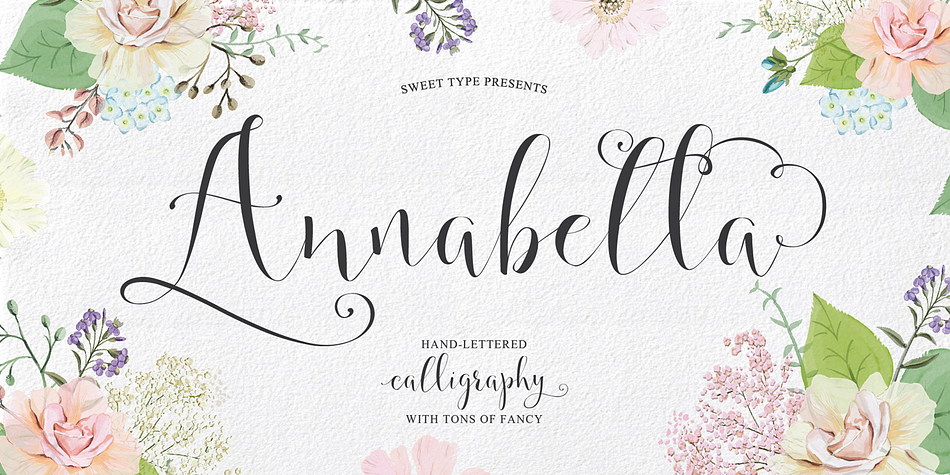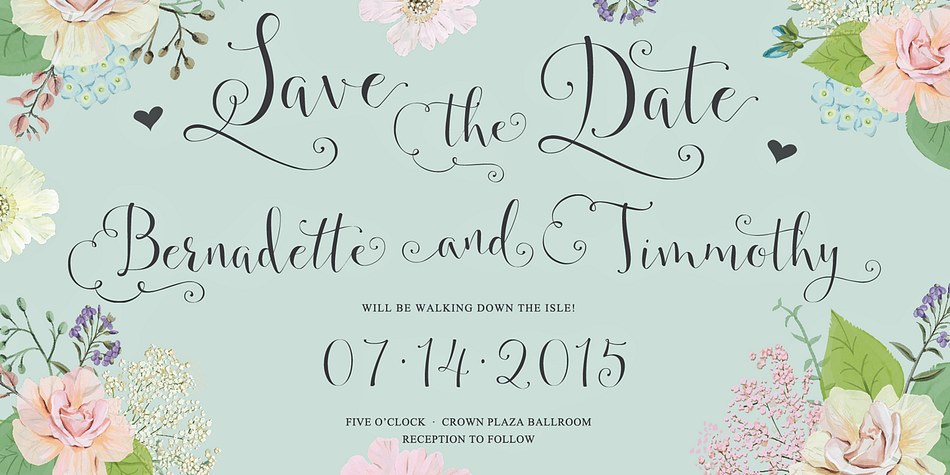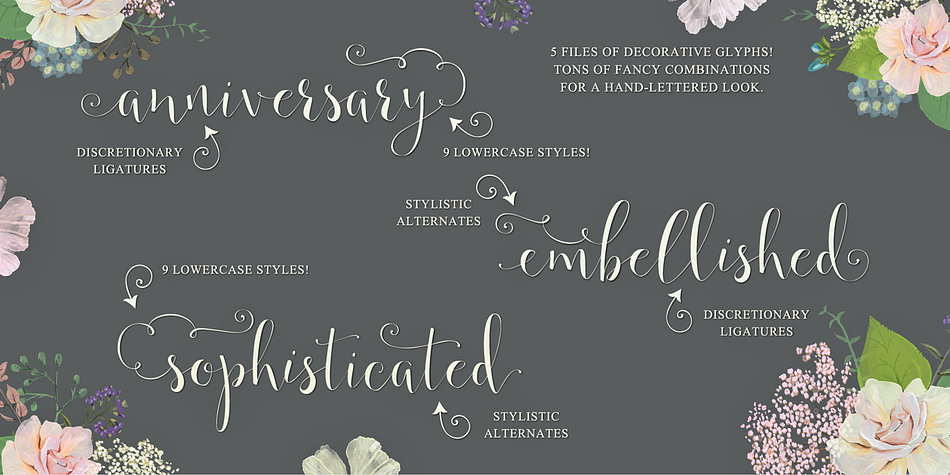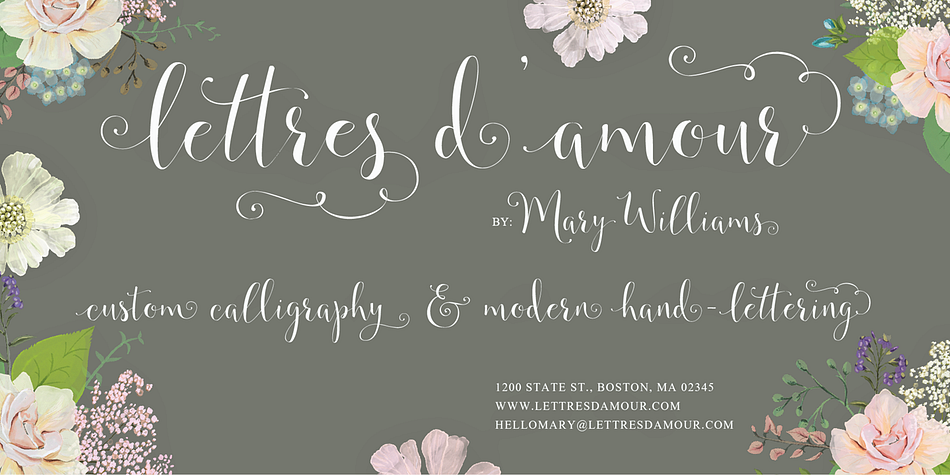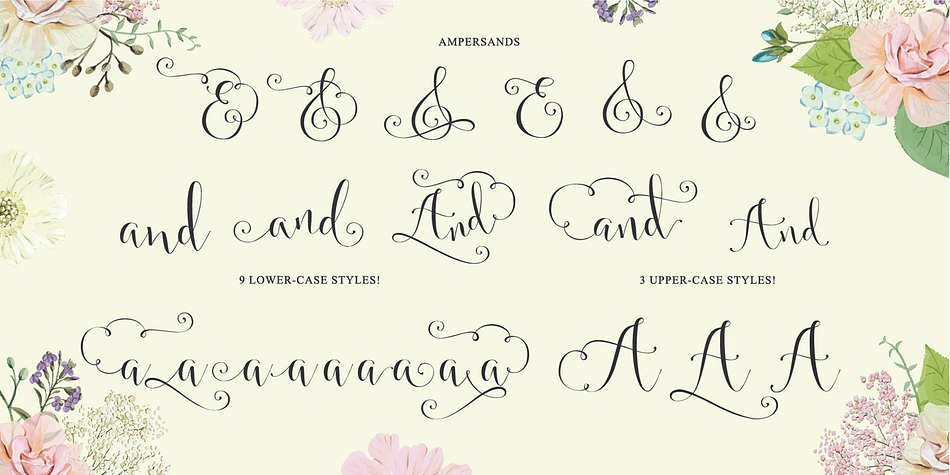
Annabella is a script and modern calligraphy font family. This typeface has seven styles and was published by Emily Spadoni.
Meet Annabella: an elegant and sweet hand-lettered calligraphy style script. She’s soon to be your favorite for weddings, stationary, logos and more.
This family features: 9 Lower-case styles, 3 Upper-case styles, Additional Ampersands and Common Letter Combinations, multi-lingual Glyphs, and international and Special Punctuation
You’ll have so much fun creating your own hand-lettered text syles. The combinations of sweet swirly letters are endless.
It’s super easy to use. Just highlight the letter you want to change and choose from the alternate file of choice.